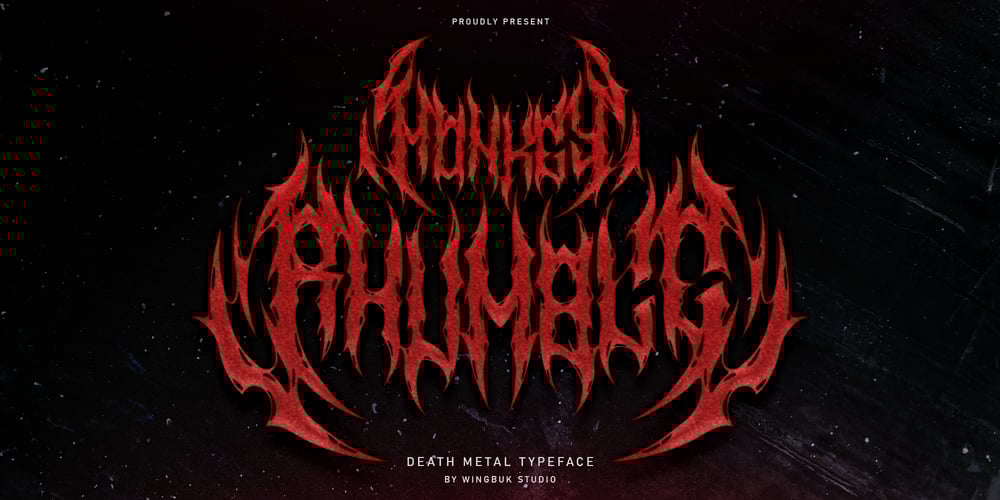
Monkey Rhumble Metal
Monkey Rhumble Metal font
Monkey Rhumble Metal Font Family was designed by Adji Shaka and published by WingBuk Studio. Monkey Rhumble Metal contains 1 styles and family package options. Monkey Rhumble is an exclusive piece made with a touch of darkness, featuring a heavy and death metal feel to compliment your design. Monkey Rhumble is very easy to use in any variation or writing combination with extra custom bracket, also perfect for metal band logos, merchandise, clothing, apparel, or anything else that calls for a metal feel.Here is tutorial how to use it : https://youtu.be/ezNu7hCqV-wFind more exclusive license with the best deal at wingbuk.comRecomended Software to use: Corel Draw Adobe Photoshop Adobe Illustrator